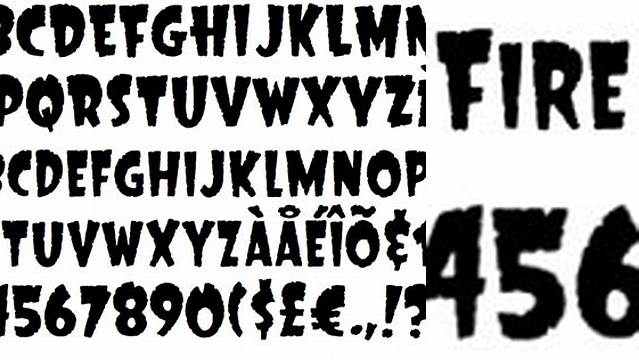
Hey guys! Ever wanted to add some fiery flair to your designs? The Big Top Fire Eater font is perfect for that! This font screams vintage circus, edgy posters, and anything that needs a bold, attention-grabbing look. In this guide, we'll dive deep into everything about this awesome font and where you can snag it for free. Let’s get started!
1. What is Big Top Fire Eater Font?
Big Top Fire Eater font is a typeface inspired by vintage circus posters and signage. It's designed with a rough, textured aesthetic that gives it a unique and striking appearance. This font is all about making a statement, so if you need something that pops, this is it! The font often features bold, blocky letters with distressed edges, giving it that authentic, old-school feel. It's perfect for projects where you want to convey a sense of nostalgia, excitement, or even a bit of danger. Imagine using it for a Halloween-themed poster or a vintage-style advertisement. The possibilities are endless!
Moreover, the Big Top Fire Eater font is versatile enough to be used in both digital and print media. Whether you're designing a website banner, a movie poster, or even a T-shirt, this font can add that extra oomph that makes your design stand out. It's not just about the look; it's about the feeling it evokes. When people see this font, they immediately think of the circus, with all its thrills and spectacles. Plus, the distressed texture adds depth and character, making it look like it's been around for ages, adding to its charm and appeal.
Finally, when you're working with Big Top Fire Eater font, remember to play around with colors and backgrounds to maximize its impact. Dark backgrounds can make the font appear even more dramatic, while bright colors can enhance its playful side. Experiment with different sizes and spacing to see what works best for your project. And don't be afraid to combine it with other fonts to create a unique visual hierarchy. After all, design is all about creativity and having fun!
2. Key Features of Big Top Fire Eater Font
So, what makes the Big Top Fire Eater font stand out from the crowd? First off, it's got that unmistakable vintage circus vibe that's super trendy right now. The distressed texture gives it a worn, authentic look that’s hard to replicate with other fonts. The bold, blocky letters are perfect for headlines and titles, making sure your message grabs attention. It’s designed to be eye-catching and memorable, which is essential for any design project aiming to make an impact. Whether you're creating posters, logos, or website headers, this font has the character to pull it off.
Another cool feature is its versatility. While it's primarily used for vintage and retro designs, Big Top Fire Eater font can also work in more modern contexts. Imagine using it for a gaming logo or a music festival poster. The key is to pair it with the right elements and colors to create a cohesive look. For example, you might combine it with neon colors and futuristic graphics for a cyberpunk-inspired design, or with earthy tones and organic shapes for a more rustic feel. The possibilities are endless, and it’s all about finding the right balance.
Lastly, the Big Top Fire Eater font often comes with a variety of glyphs and alternate characters, giving you even more flexibility in your designs. These extra characters can add unique flourishes and details that set your work apart. For instance, you might use a special character for a logo or a brand name to make it more distinctive. Be sure to check the font package for these hidden gems and experiment with them to see how they can enhance your designs. With its bold style and versatile features, Big Top Fire Eater font is a great addition to any designer's toolkit.